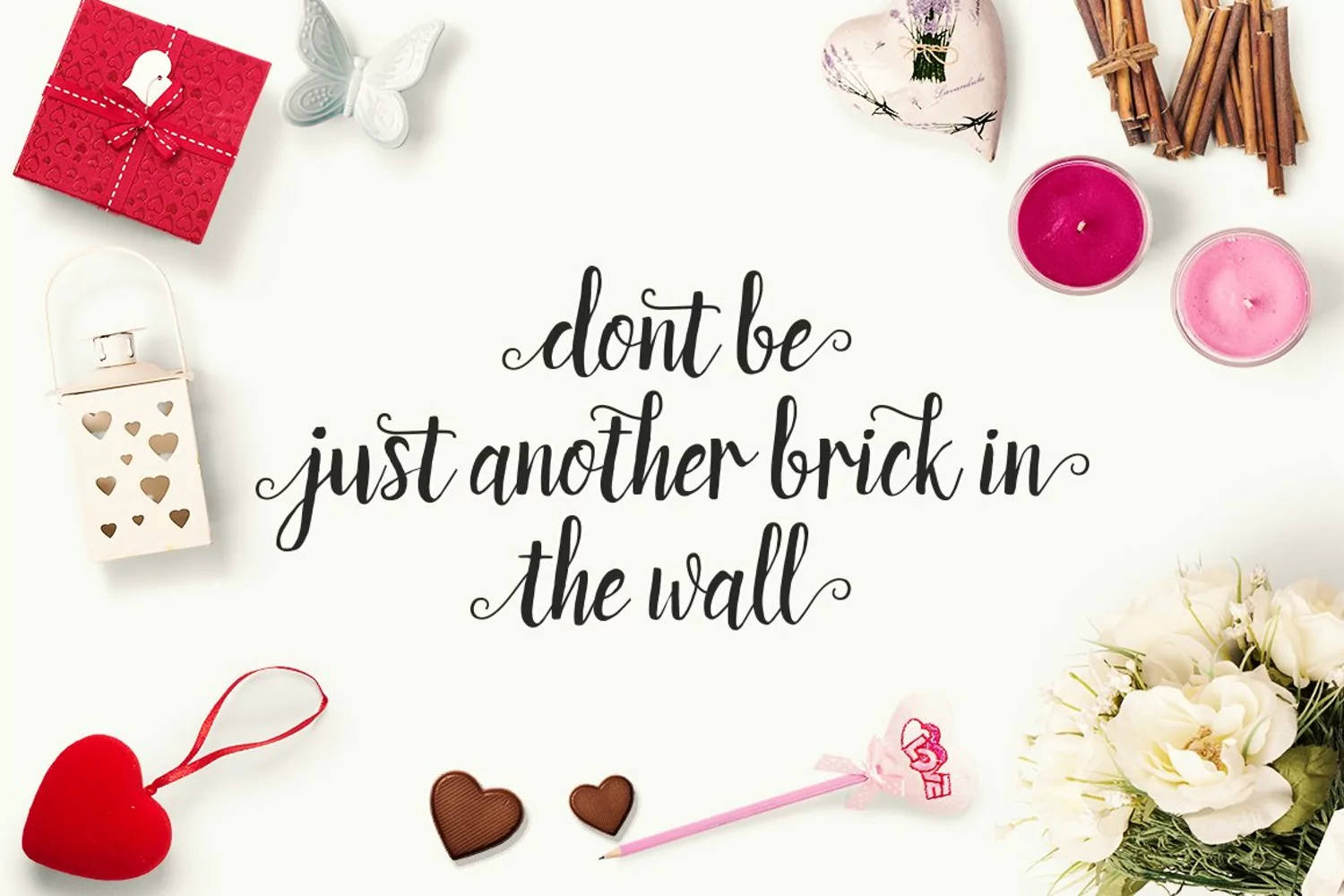
Rachelle
Rachelle is a beautiful and modern handwriting script Typeface with inreguler baseline. this font Suitable for any project products, such as wedding invitations, greeting cards, design of water-based paints, correspondence, and a variety of other purposes and more. this font multiple international language support, the choice of useful unique ligatures and more alternate style, you can get it on this font.
- Contextual Alternates
- Standard ligatures
- Unique ligatures
- Stylistic Alternates
Stylistic sets
- Basic Latin A-Z and a-z
- Numbers-
- International Symbols include